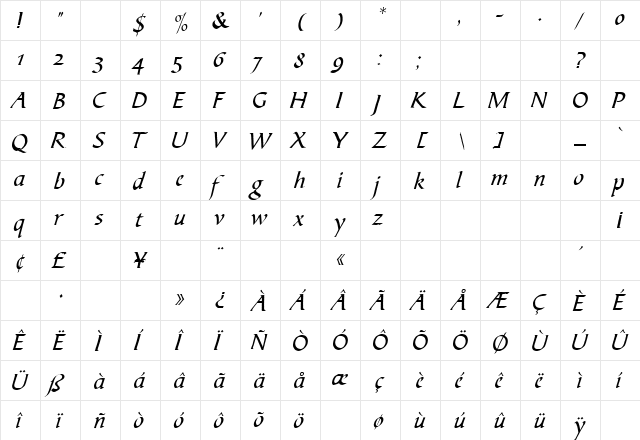
BibleScript Style2 Plain
Design Context for BibleScript Style2 Typeface
BibleScript Style2 brings a calligraphic fluidity to the page — its connecting strokes and expressive curves give it an unmistakably human quality.
Font Pairing: Combine BibleScript Style2 with a simple geometric sans for maximum contrast — the tension between flowing curves and clean structure is a classic typographic pairing.
Pro Tip: Pair BibleScript Style2 with a clean sans-serif for supporting text. The contrast between fluid script and geometric structure creates an elegant typographic hierarchy.